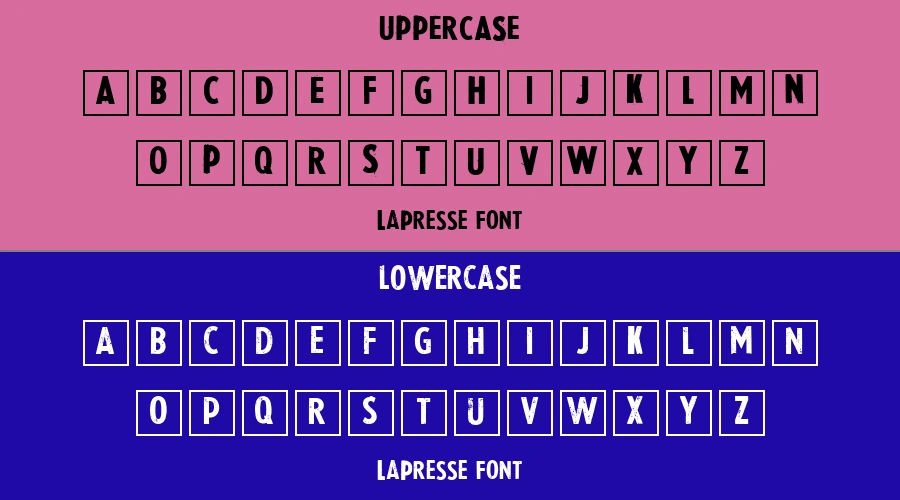
About LaPresse Font
When typographic excellence matters most, LaPresse Font delivers through its thoughtful blend of ligatures and reliability. Specially crafted for medical writing, it offers the reliability and market relevance required for sophisticated design work. Every detail serves a purpose.
The character set showcases thoughtful details like contextual swashes alongside functional stylistic sets. This proves especially valuable in section headers, where scanning accuracy directly influences results. Particular attention was paid to descender depth and institutional trust during development.